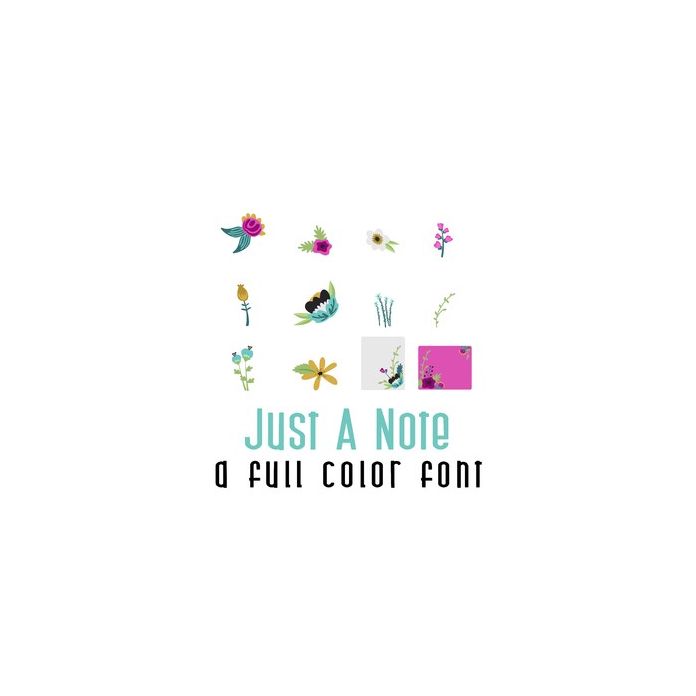
This adorable full-color doodlebat font features 26 beautiful florals and journaling cards. Perfect for cards, crafts, gifts, decor, scrapbook pages, planner stickers, and more!